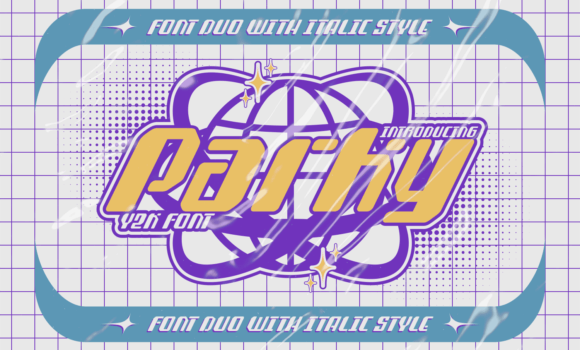
parky
Parky Font – Free Download Introduction to Parky Font Parky is a cutting-edge display font that brings a futuristic touch to any project. 📸 Preview Gallery 6 images 📌 Product Name Parky Font 👤 Author shineink.designlab 📂 Category Explore ⬇️